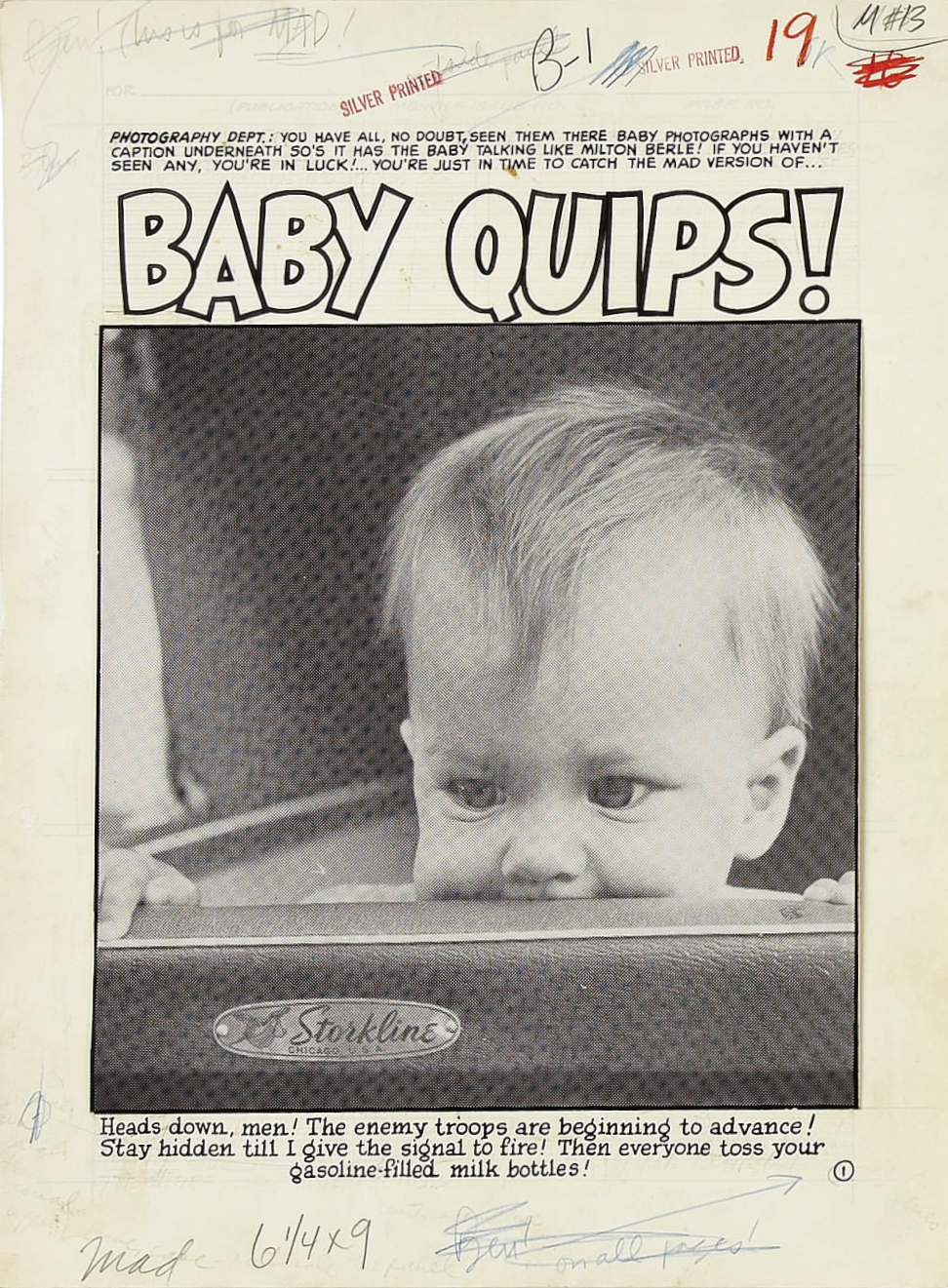
BEN H. ODA
December 21, 1915 – November 1984
1930 United States Federal Census
Name: Ben Oda
Gender: Male
Birth Year: abt 1913
Birthplace: California
Race: Japanese
Home in 1930: Florin, San Joaquin Township, Sacramento County, California
Address: Florin Road
Marital Status: Single
Relation to Head of House: Son
Father's Birthplace: Japan
Mother's Name: Tsune Oda
Mother's Birthplace: Japan
Parents' birthplace: Japan
Household Members:
Name / Age
Tsune Oda / 58 [Basket Maker]
Ben Oda / 17
1940 United States Federal Census
Name: Ben Oda
Age: 25
Estimated Birth Year: abt 1915
Gender: Male
Race: Japanese
Birthplace: California
Marital Status: Single
Relation to Head of House: Brother
Home in 1940: Florin, San Joaquin Township, Sacramento County, California
Inferred Residence in 1935: San Joaquin, Sacramento, California
Residence in 1935: Same Place
Household Members:
Name / Age
Frank S Oda / 35 [Hawaii; Farmer]
Tsune Oda / 65 [Widow]
Ben Oda / 25
World War II Army Enlistment Record
Name: Ben H Oda
Birth Year: 1913
Race: Japanese, citizen (Japanese)
Nativity State or Country: California
State of Residence: California
County or City: Los Angeles
Enlistment Date: 3 Feb 1941
Enlistment State: California
Enlistment City: Los Angeles
Branch: Branch Immaterial - Warrant Officers, USA
Branch Code: Branch Immaterial - Warrant Officers, USA
Grade: Private
Grade Code: Private (paratrooper)
Component: Selectees (Enlisted Men)
Source: Civil Life
Education: 3 years of college
Civil Occupation: Actors and actresses
Marital Status: Single, without dependents
Height: 66
Weight: 145
U.S. City Directories
Name: Ben H Oda
Residence Year: 1948
Street Address: 601 W 110
Phone Number: MOnumnt 3–1841
Residence Place: New York, New York
Publication Title: New York, City Directory, 1948 (below)
Justice Traps the Guilty #56, November 1953
The line-up from left to right:
Ben Oda, Joe Simon, Joe Genalo, Mort Meskin and Jack Kirby.
Mad #13, July 1954
At the bottom of the page, in blue pencil, is Kurtzman’s note:
“Ben! on all pages!” (arrow points to circled number one).
Jonah Hex #33, February 1980
DC Profiles Number 56: Ben Oda
Ben Oda has been lettering comics since 1945—and not just comic books, either. Ben has, at one time or another, done the lettering for such comic strips as Rip Kirby, Prince Valiant, Flash Gordon, Dondi, On Stage, Quincy, Gil Thorpe, Dr. Kildare, The Phantom, Steve Canyon, Kerry Drake, Secret Agent X-9, The Dropouts, Terry and the Pirates, and Tarzan.
Of course, Ben has lettered virtually all of DC’s major characters, too, including Superman, Batman, Flash, Green Lantern, and Wonder Woman.
Ben is widely renowned throughout the industry as one of the best letterers around. Professor John Adkins Richardson singled Ben out for special praise in his book, The Complete Art of Cartooning. Yet Ben claims there is no special secret to what he does. He uses standard Speedball lettering pens and his own steady hands and keen eye for spacing to produce hundreds of pages of expertly lettered comic books and strips every year.
Ben actually began his career as an apprentice at the Walt Disney Studios after graduating from the Choinard [sic; Chouinard] School of Fine Arts in Los Angeles. But his stay there was cut short in early 1941 when he was drafted into the Army. Some months later the U.S. entered World War II and Ben found himself being transferred all over the country. His Army years provided Ben with an opportunity to further his education and after a tour of duty in France he found himself attending classes at the University of Illinois at Champaign and later at Yale University. While stationed at Fort Sheridan (Illinois) with the First Medic Corps, Ben wrote and drew a comic strip called “Donald Doc” for the camp newspaper.
But Ben’s “best accomplishment” in those days came when the Fort Sheridan basketball team, which he played for, beat rival Camp Grant—just after that team had clobbered the number one college team in the country! “It was my biggest thrill,” recalls Ben. “The Camp Grant commander was so proud of his team—he made sure that any professional athletes who got transferred to his command stayed at Camp Grant and played on his teams. We showed him.”
After the War, Ben found work with Simon and Kirby, and went on to work with a succession of comics publishers—Crestwood, Hillman, Ziff-Davis, EC, Gold Key, and others. Ben worked for MAD at the very beginning and was also in on the start of Warren Publications. These days, though, Ben restricts his comic book work exclusively to DC.
Ben is the father of two sons and two daughters, aged 28, 23, 21, and 19, and lives with his wife of more than 30 years in New Jersey.
Superman #408, June 1985
“Ben Oda Remembered”
By Andrew Helfer
“Ben Oda Remembered”
By Andrew Helfer